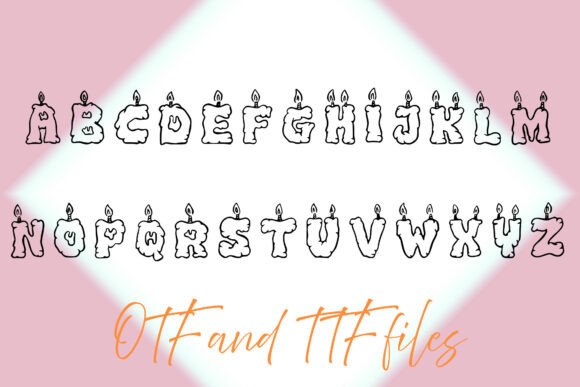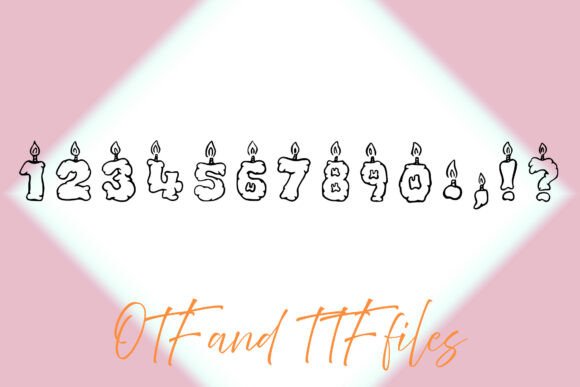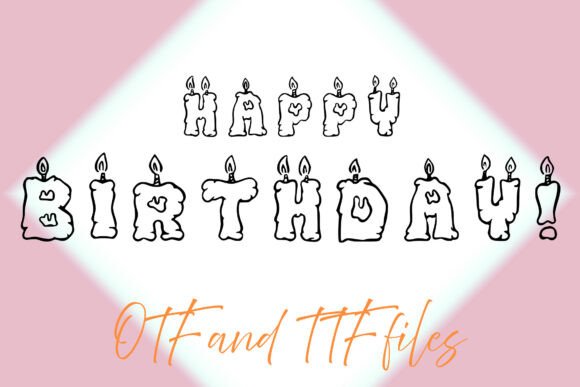
Cute Candle Font: Adding a Warm and Whimsical Touch to Your Designs
Are you looking for a font that can bring a warm and whimsical touch to your designs? Look no further than the Cute Candle Font! This adorable font is perfect for designers and crafters who want to add a playful and cozy vibe to their projects. In this article, we’ll explore the features and benefits of the Cute Candle Font and how it can elevate your designs.
A Soft and Melting Wax Effect
The Cute Candle Font is characterized by its soft, melting wax effect and tiny flickering flame on top of each letter. This unique feature gives the font a warm and inviting look that’s perfect for a variety of design projects. Whether you’re creating birthday invitations, holiday cards, or kids’ party decorations, this font is sure to add a touch of whimsy and charm.
Pastel Colors and Hand-Drawn Aesthetic
The Cute Candle Font features pastel colors that add a soft and soothing touch to your designs. The hand-drawn aesthetic of the font gives it a personal and playful feel that’s perfect for crafters and designers who want to create unique and eye-catching projects. The font’s playful vibe is sure to delight kids and adults alike, making it perfect for a wide range of design applications.
Perfect for Festive Branding and Decorations
The Cute Candle Font is perfect for festive branding and decorations, including holiday cards, birthday invitations, and kids’ party decorations. The font’s whimsical and playful design makes it ideal for creating eye-catching and engaging designs that will capture the attention of your audience. Whether you’re designing for a holiday market, a birthday party, or a special event, this font is sure to add a touch of warmth and charm to your designs.
The Cute Candle Font offers a range of benefits for designers and crafters, including:
- Unique and eye-catching designs: The Cute Candle Font’s soft, melting wax effect and tiny flickering flame make it a standout font that’s sure to grab attention.
- Playful and whimsical vibe: The font’s playful and whimsical design makes it perfect for creating fun and engaging designs that will delight kids and adults alike.
- Easy to use: The Cute Candle Font is easy to use and can be incorporated into a wide range of design projects, from digital designs to print materials.
- Customizable: The font can be customized to fit your design needs, allowing you to create unique and personalized designs.
Tips for Using the Cute Candle Font
Here are some tips for using the Cute Candle Font in your designs:
- Pair with complementary fonts: Pair the Cute Candle Font with complementary fonts to create a unique and eye-catching design.
- Use in combination with images: Use the Cute Candle Font in combination with images to create a visually appealing design.
- Experiment with colors: Experiment with different colors and textures to add depth and interest to your design.
- Keep it simple: Keep your design simple and uncluttered to allow the font to be the focal point.
The Cute Candle Font is a unique and charming font that’s perfect for designers and crafters who want to add a warm and whimsical touch to their designs. With its soft, melting wax effect, tiny flickering flame, and pastel colors, this font is sure to delight kids and adults alike. Whether you’re creating birthday invitations, holiday cards, or kids’ party decorations, the Cute Candle Font is a great choice for adding a playful and cozy vibe to your designs.
Get Creative with Cute Candle Font